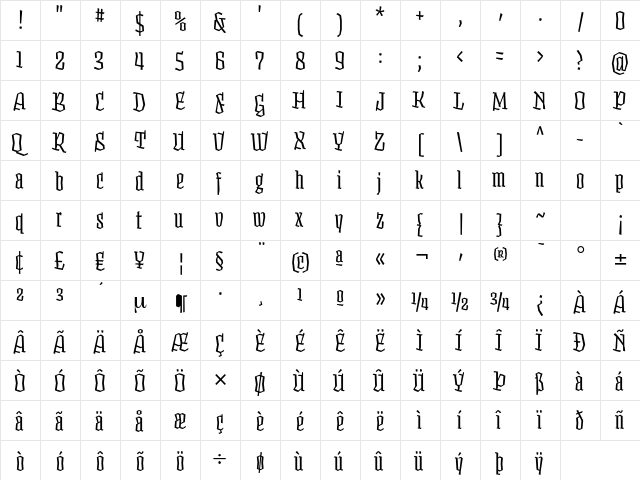
Fakir Display Regular Cnd
Design Context for Fakir Display Typeface
Fakir Display brings ornamental detail and strong personality to headlines and identities, where visual impact matters more than quiet functionality.
Font Pairing: Pair with a clean neutral sans-serif for body copy to let Fakir Display's character lead without overwhelming the composition.
Pro Tip: Treat Fakir Display as the centrepiece of your typographic hierarchy. One strong heading set in a decorative face can carry an entire layout.